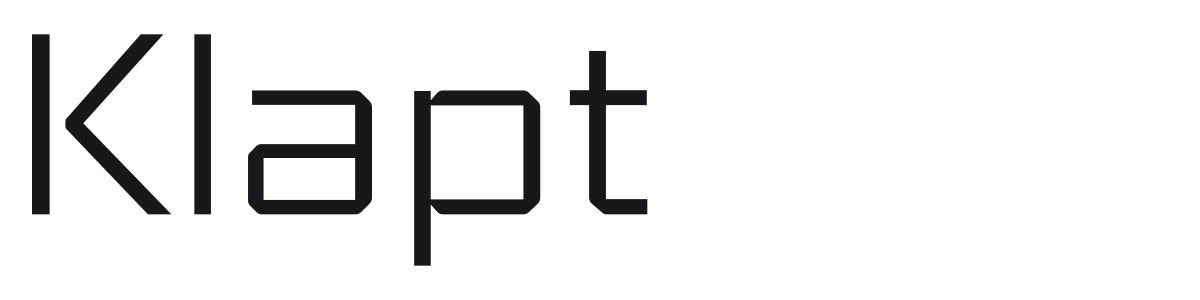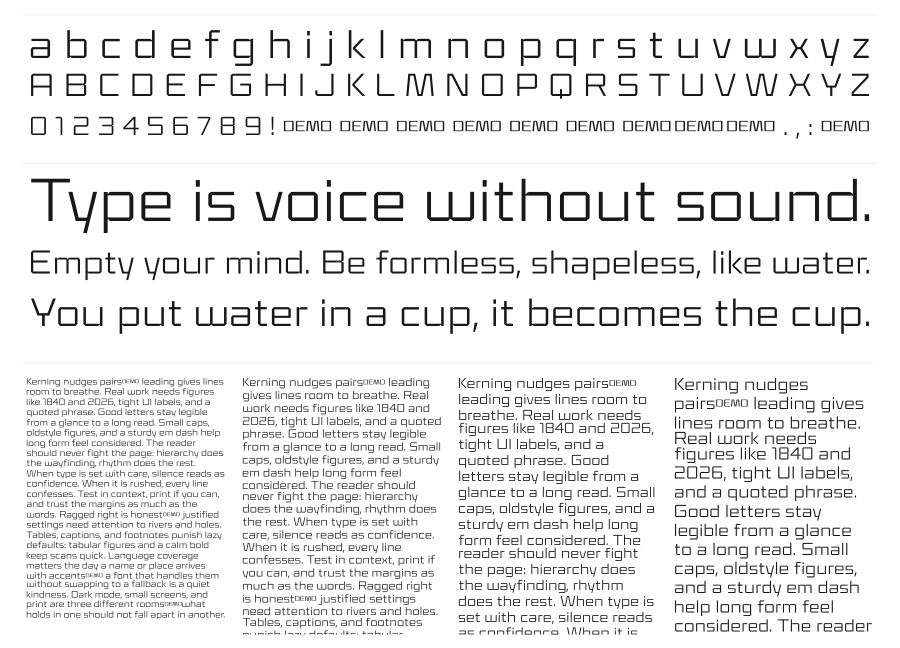
Klapt
Klapt is a light geometric sans with squarish, rounded terminals and a cool, near-monoweight stroke. Its open counters and even proportions give it a spacious, composed presence that works well at large sizes. The design sits at the intersection of technical precision and understated softness.